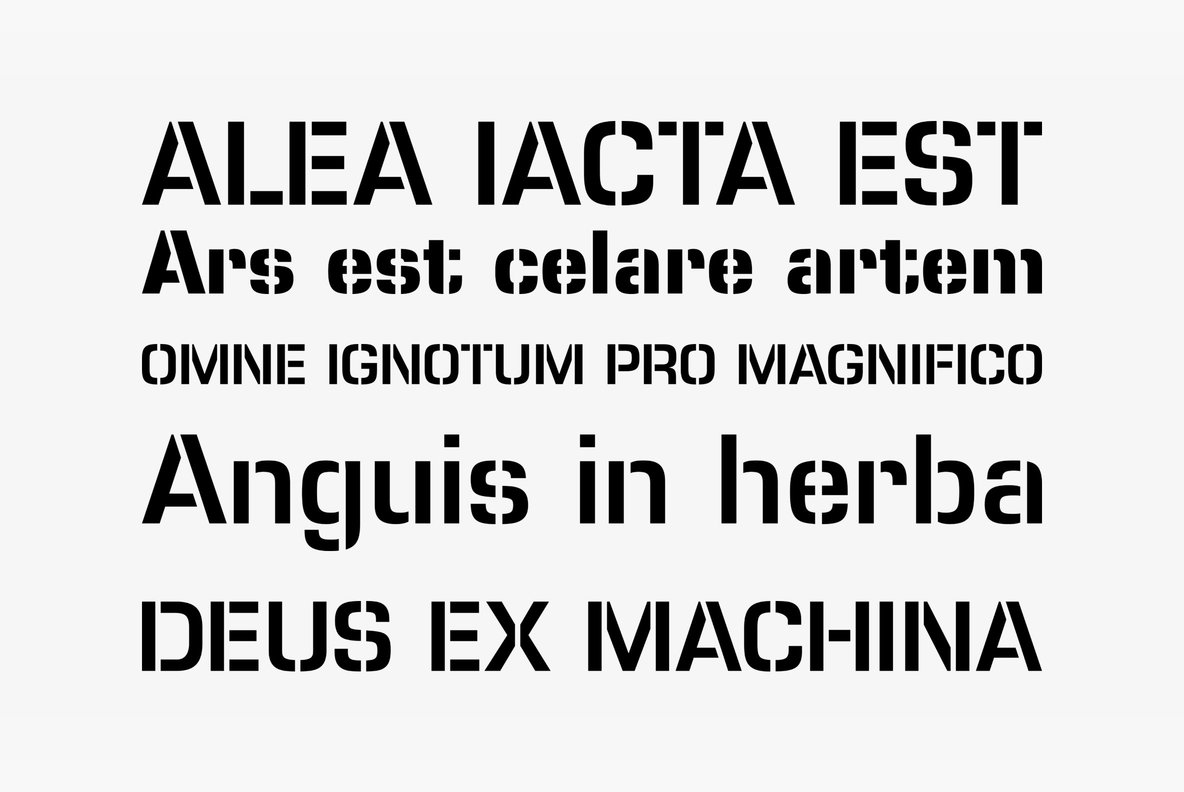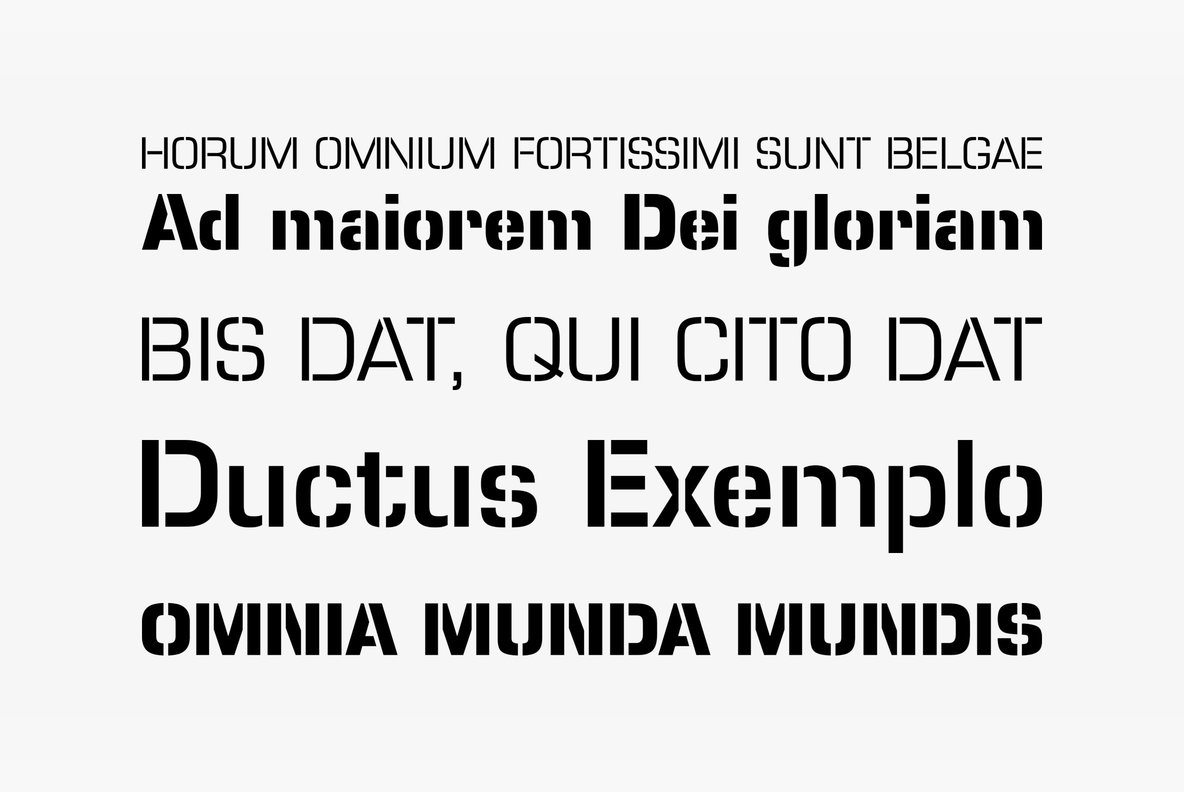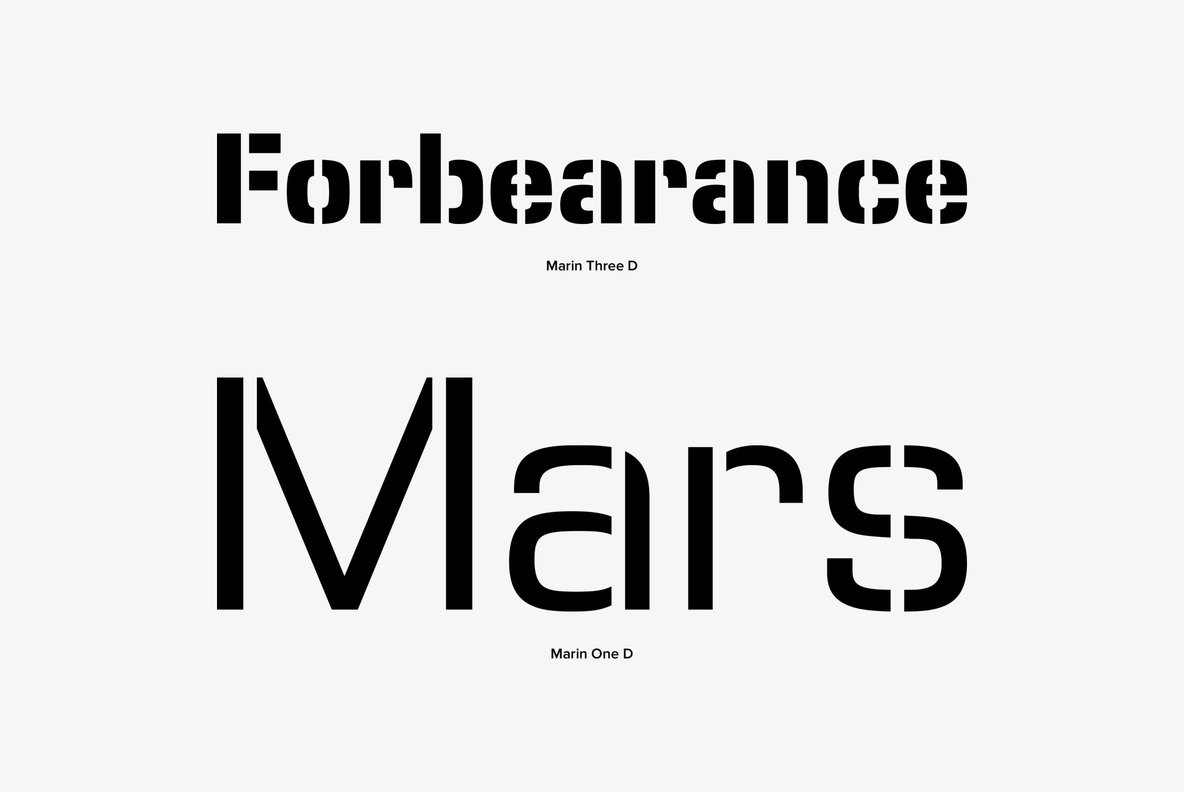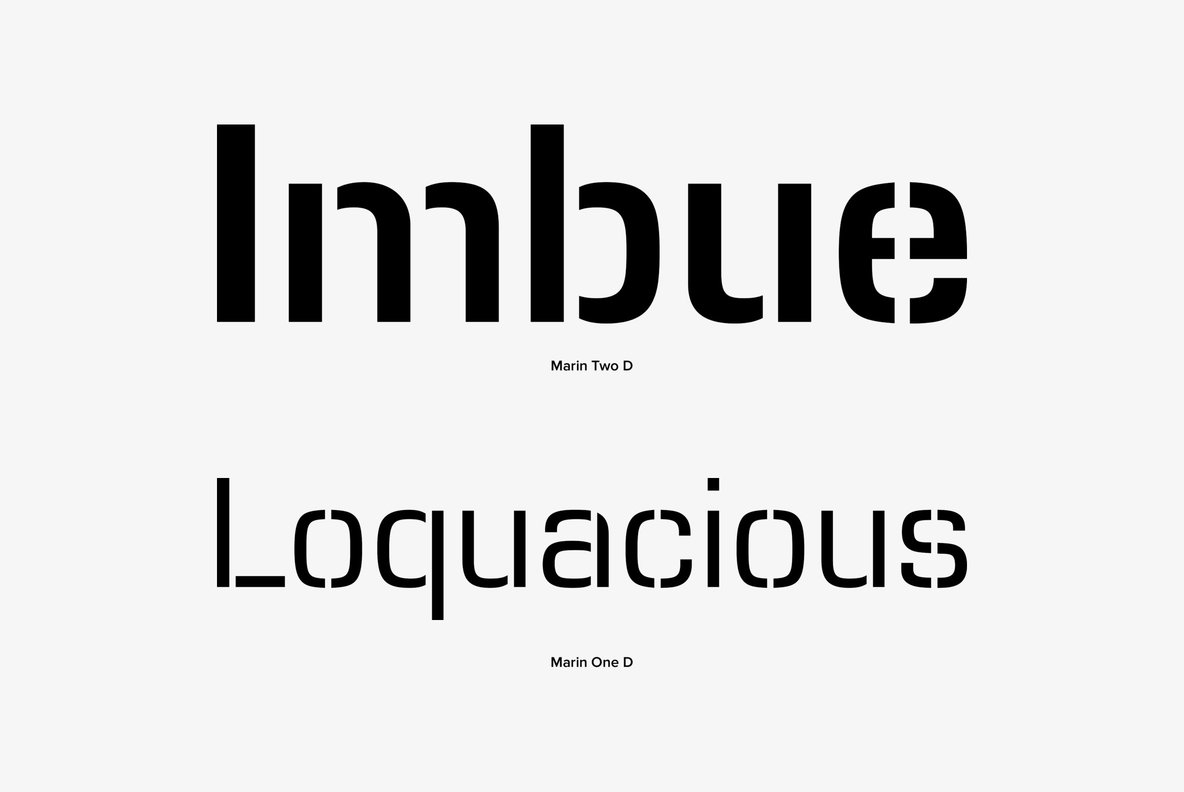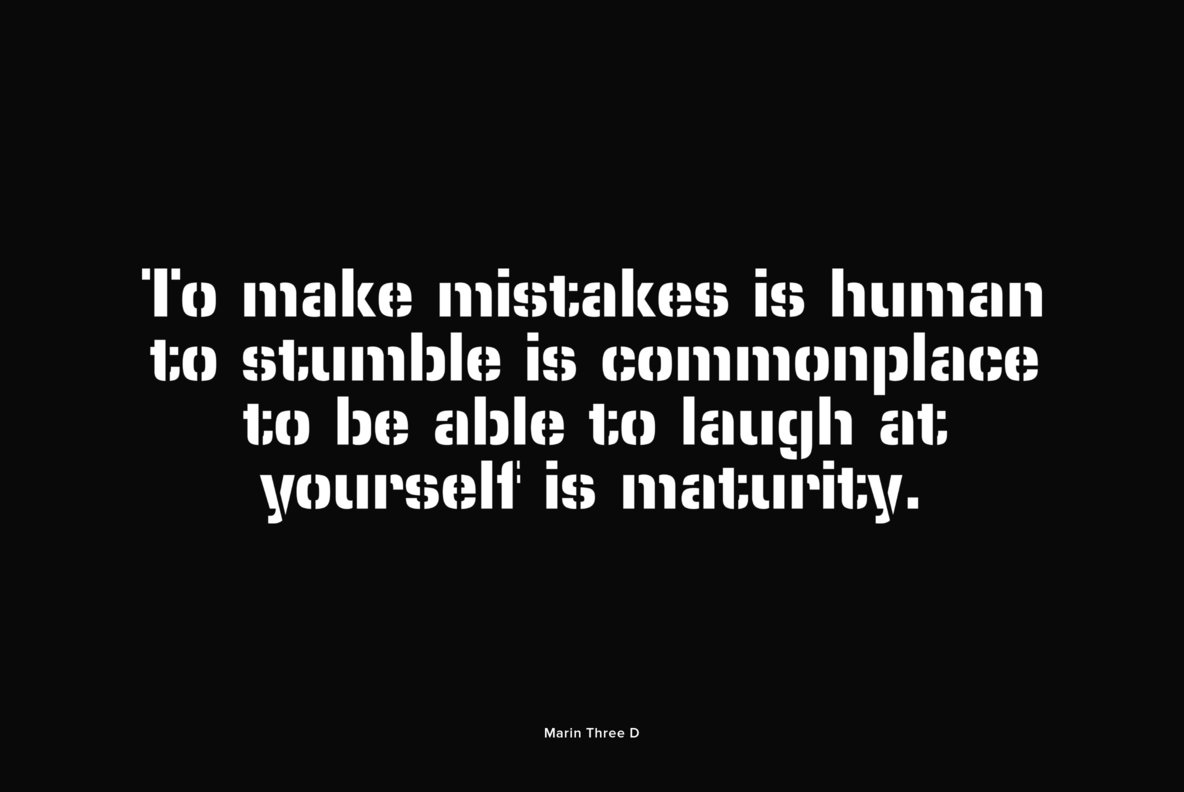
This new typeface by German type designer Claudia Kipp looks very confident and follows the ideas of Eurostile, however in Stencil design. Stencil fonts and fonts with a technical touch in general seem to be en vogue lately. Following this style, Marin is very trendy and bound to become very popular! Marin was designed for the URW++ FontForum.